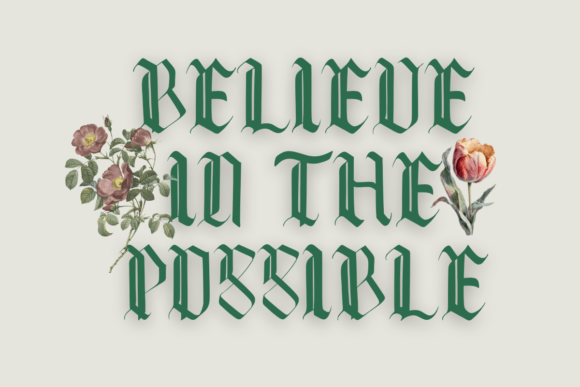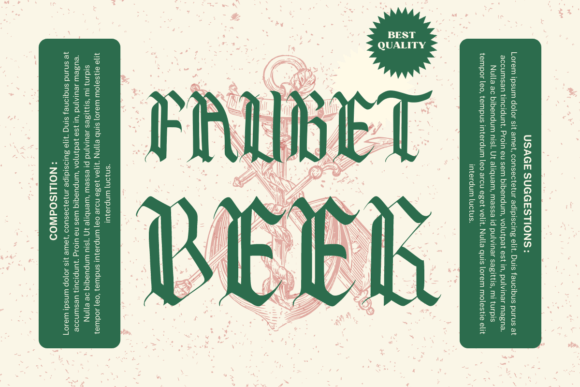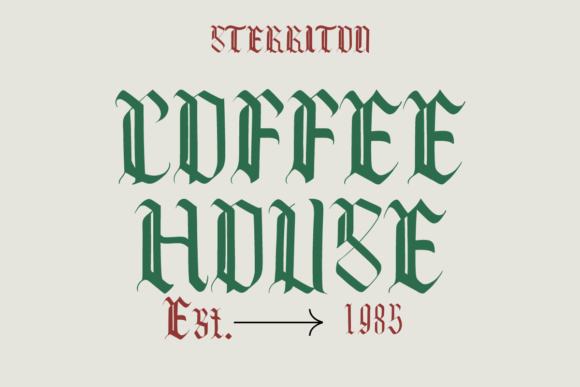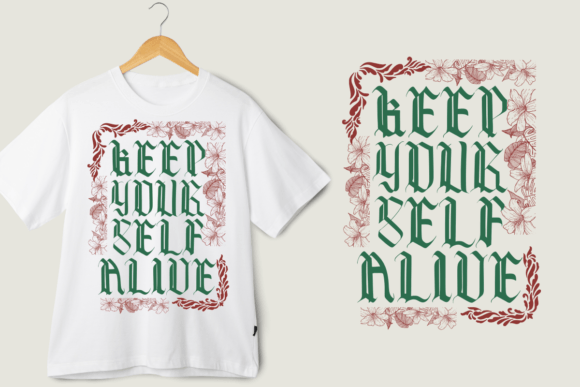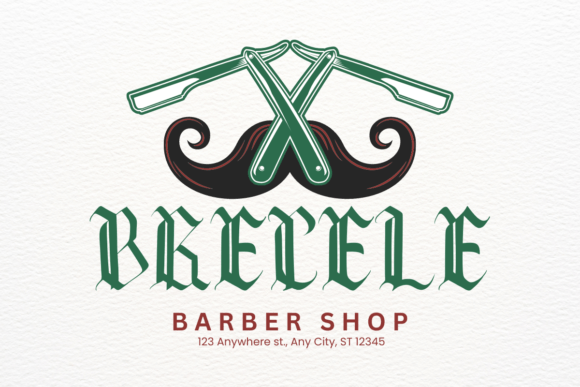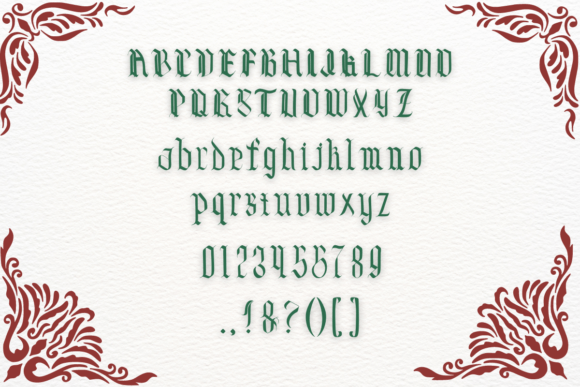
The Ultimate Guide to Destroys Font: Unleashing the Power of Blackletter Typography
I’ll never forget the time I was working on a project, trying to create a bold and eye-catching design, but struggling to find the right font. My client wanted something that would evoke a sense of mystery and drama, but I just couldn’t seem to find the perfect fit. That was until I stumbled upon Destroys, a Blackletter font that has since become a staple in my design toolkit. In this article, I’ll share my experience with Destroys, and show you how to get the most out of this incredible font.
First Impressions: What I Love About Destroys ✨
Destroys is a stunning Blackletter font that’s perfect for designs that need a gothic, edgy accent. Here are just a few things I love about it:
- ✅ Versatility: Destroys is suitable for a wide range of design projects, from book covers and posters to packaging and merchandise.
- ✅ PUA Encoded Characters: Destroys features PUA encoded characters, which means you can access all the glyphs and stylistic alternates without needing any add-ons.
A Few Quirks to Keep in Mind 🤔
While Destroys is an amazing font, there are a few things to keep in mind:
- ⚠️ Glyph limitations: While Destroys has a wide range of glyphs and stylistic alternates, there may be some limitations when it comes to more complex typography.
- ⚠️ Legibility: As with any Blackletter font, legibility can be an issue at smaller font sizes. Be sure to test the font at different sizes to ensure it works for your project.
The Story Behind Destroys
Destroys was inspired by the dark and moody typography of the Victorian era. The font’s designer wanted to create a font that would evoke a sense of mystery and drama, while still being easy to read and use. The result is a font that’s perfect for designs that need a gothic, edgy accent.